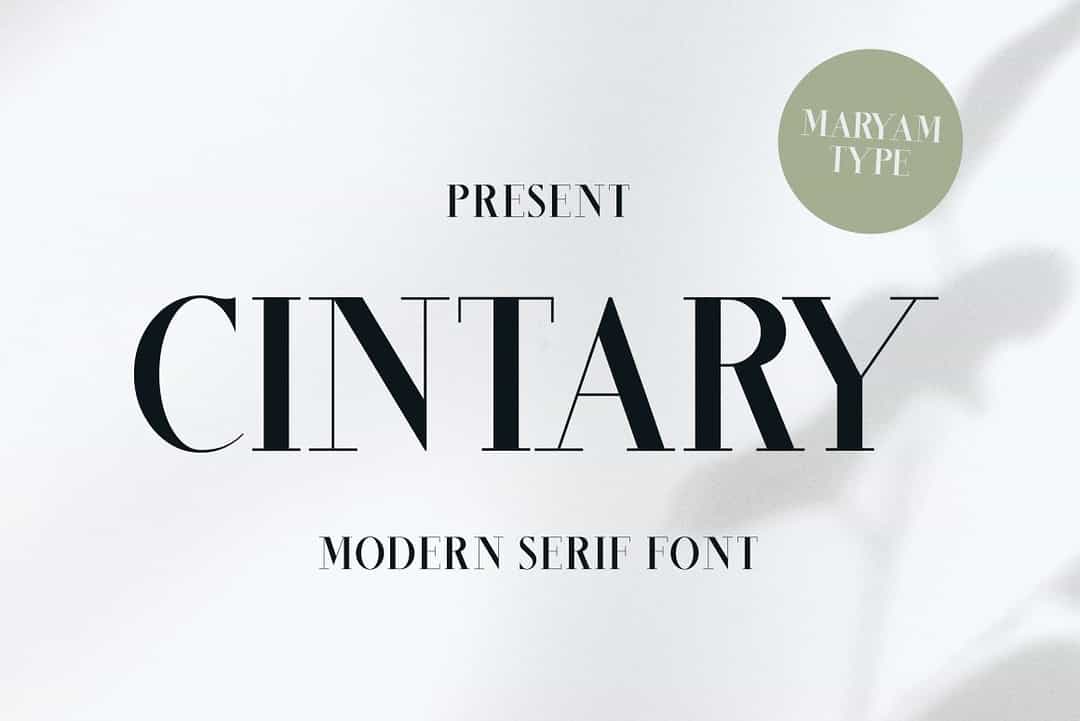
Cintary Contemporary Serif font designed by Maryamtype Studio is an elegant serif typeface with a distinctive modern style and look, which can be used to create luxurious logos, book or film titles, fashion labels, magazine and clothing fonts, quotes and much more.